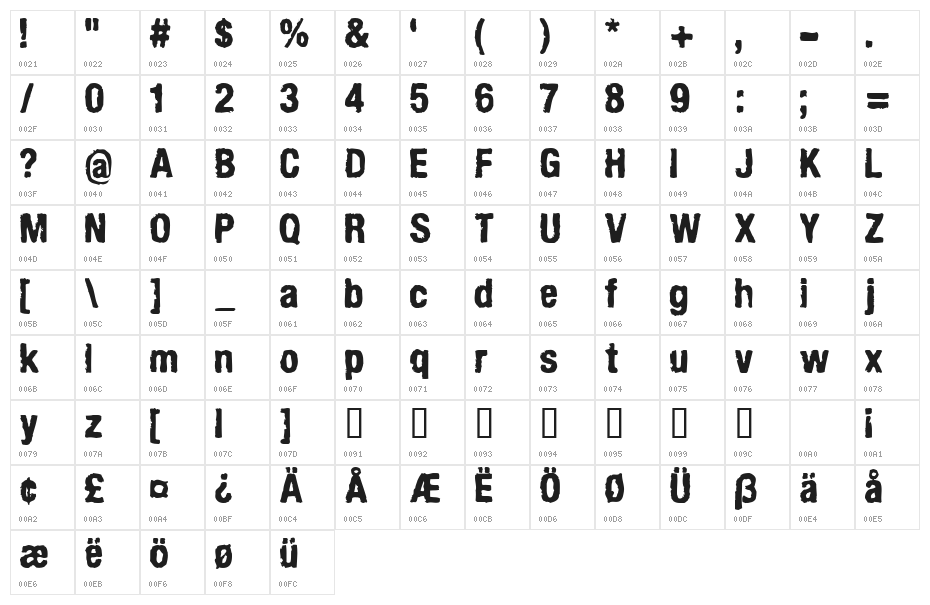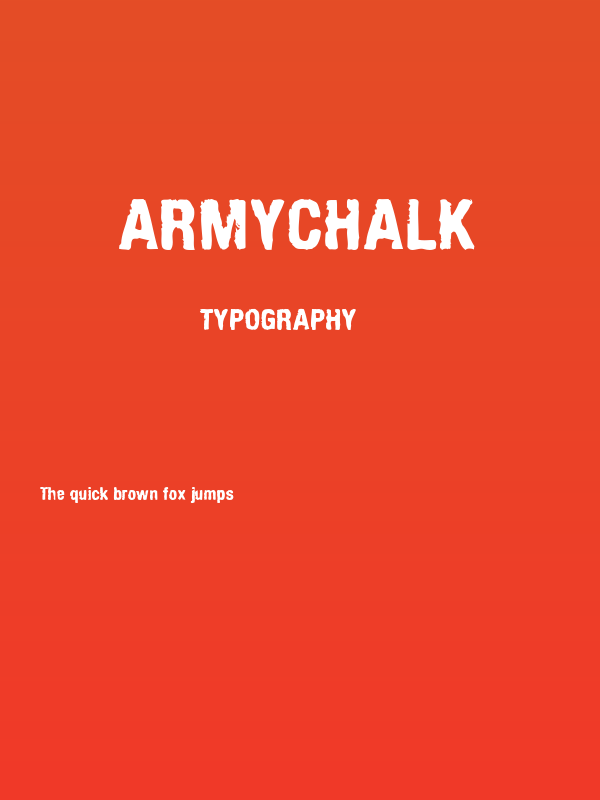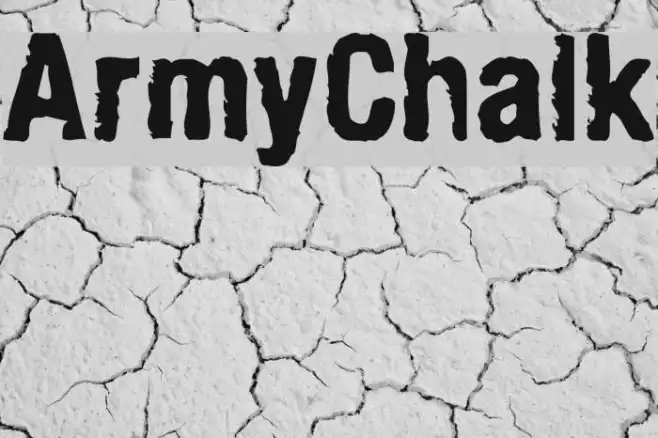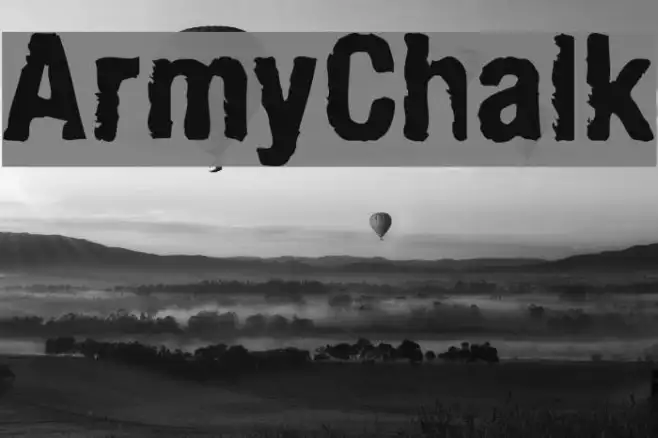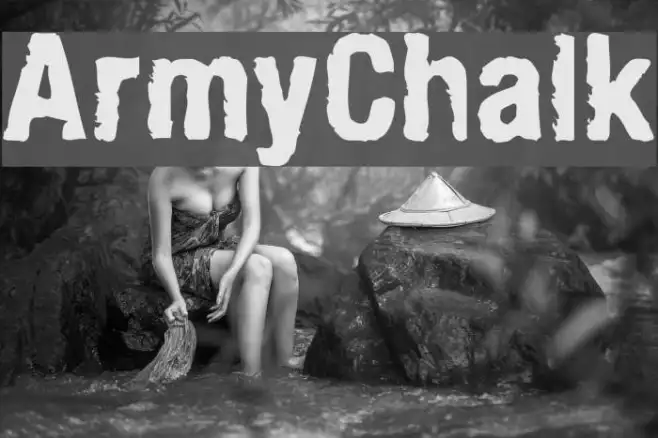
ArmyChalk Font
ArmyChalk Description
This font features a rugged, distressed appearance reminiscent of chalk or stencil markings. The characters are bold and heavily textured, giving them a worn, military-inspired look. The uppercase and lowercase letters maintain a consistent style, with rough edges that suggest a hand-drawn quality. Numbers and special characters follow the same design, ensuring uniformity across all elements. The font's boldness and unique texture make it stand out, ideal for projects that require a strong, impactful visual presence.
| Proposed Projects | Ideal for military-themed designs, posters, logos, and any project needing a strong, bold statement. |